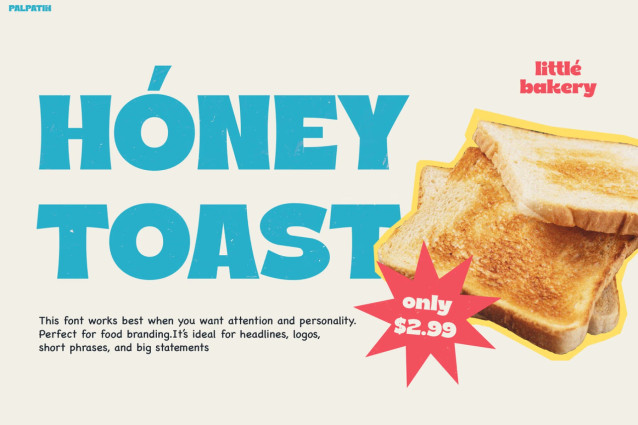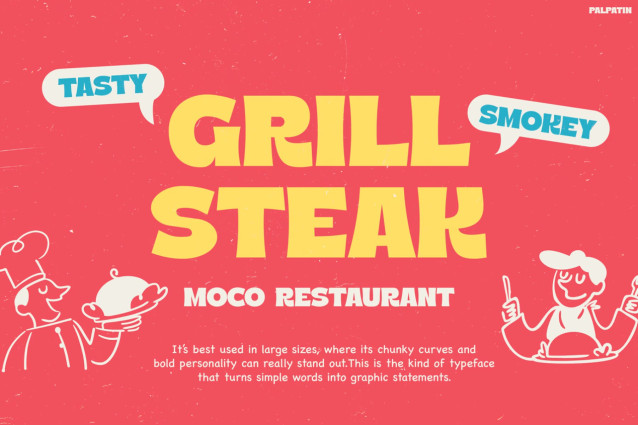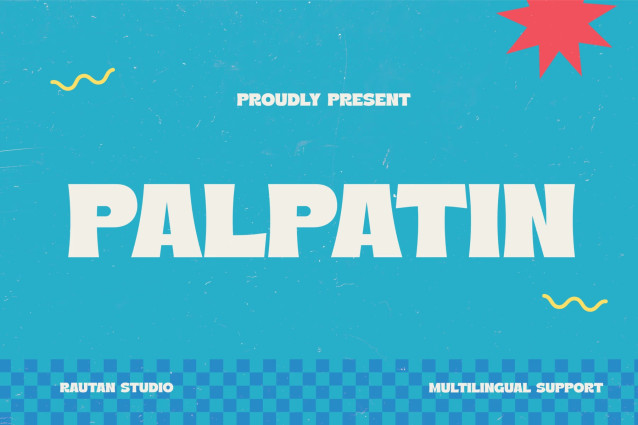
Palpatin Font is a bold retro display font featuring chunky curves, flared terminals, and thick rounded strokes. Its slightly exaggerated proportions and heavy letterforms give it a strong visual presence that feels fun, punchy, and full of playful energy.
Natural fits include food and beverage packaging, bakery branding, cafe signage, children’s book titles, retro-themed posters, and casual social media graphics. It is best suited for headlines, posters, and display sizes where its warm, energetic shapes can take center stage.